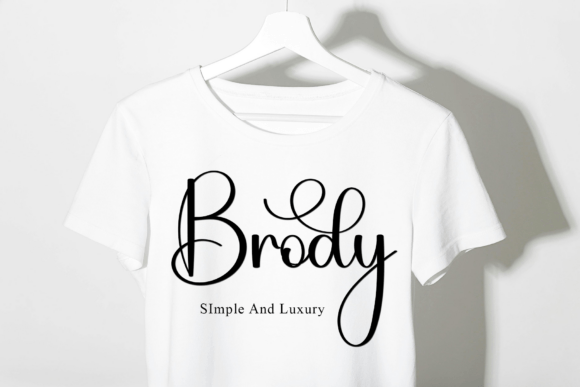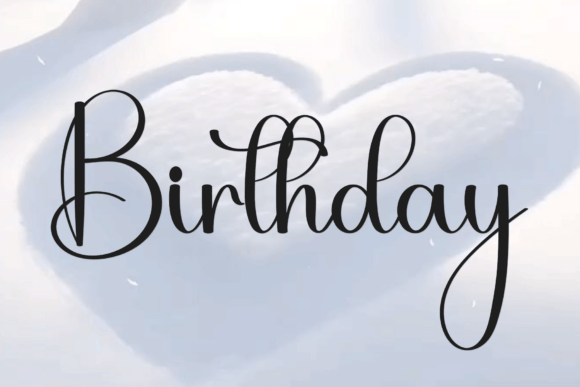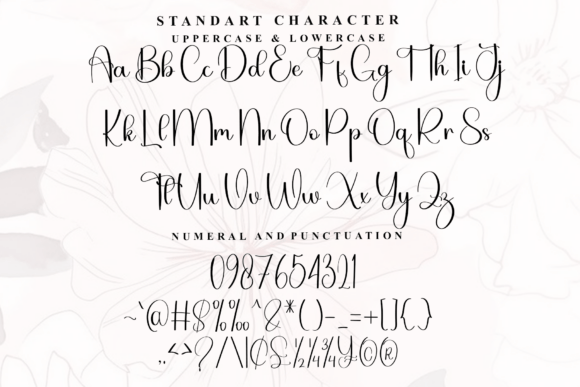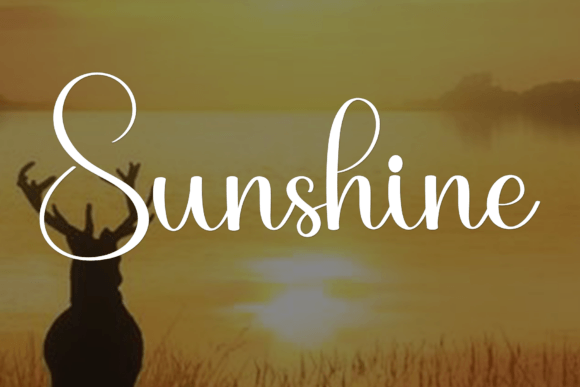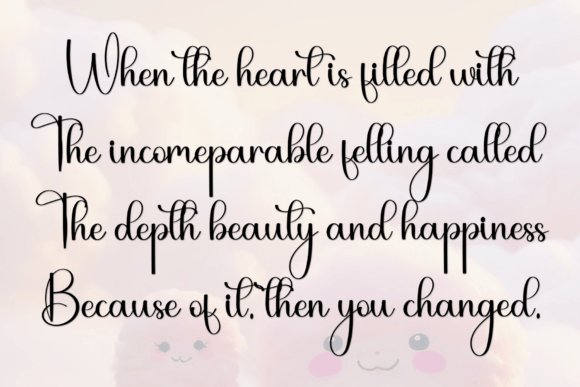
The Magic of Cinderella Font: Elevate Your Designs with a Touch of Whimsy
I’ll never forget the time I was working on a project for a client’s wedding invitation. I had the design concept nailed down, but something was missing – the perfect font. I scrolled through page after page of Google results, but nothing seemed quite right. That was until I stumbled upon Cinderella Font. With its smooth, flowing curves and modern feel, it was love at first sight! In this article, I’ll share my experience with Cinderella Font, its features, and how to make the most of it in your designs.
A Personal Review of Cinderella Font
- ✨ Smooth, flowing curves that give it a natural and playful look
- ✅ Perfect for adding a personal touch to designs, whether it’s for invitations, logos, or quotes
- 🎉 Fun and creative vibe that makes it ideal for projects that need a bit of whimsy
While Cinderella Font is a beautiful addition to any design, there are a few things to keep in mind:
- 🤔 Limited use of uppercase letters can make it less suitable for designs that require all caps
- ⚠️ May not be the best choice for body text due to its script nature and potential readability issues
- Experiment with OpenType features like ligatures and stylistic alternates to add more flair to your text
- Explore glyphs and stylistic alternates to customize your text and make it more visually appealing
The Backstory of Cinderella Font
Cinderella Font was designed with the intention of bringing a touch of magic to designs. Its creator drew inspiration from classic fairy tales and modern script fonts to craft a unique and versatile typeface. The result is a font that’s both elegant and playful, perfect for a wide range of design applications.
Q: What type of projects is Cinderella Font best suited for?
A: Cinderella Font is perfect for projects that require a personal touch, such as invitations, logos, quotes, and social media graphics.
Q: Does Cinderella Font support OpenType features?
A: Yes, Cinderella Font supports OpenType features, including ligatures and stylistic alternates, which can be accessed in compatible design software.
Q: Can I use Cinderella Font for body text?
A: While Cinderella Font is beautiful, it’s not recommended for body text due to its script nature and potential readability issues. It’s best used for headings or short paragraphs.